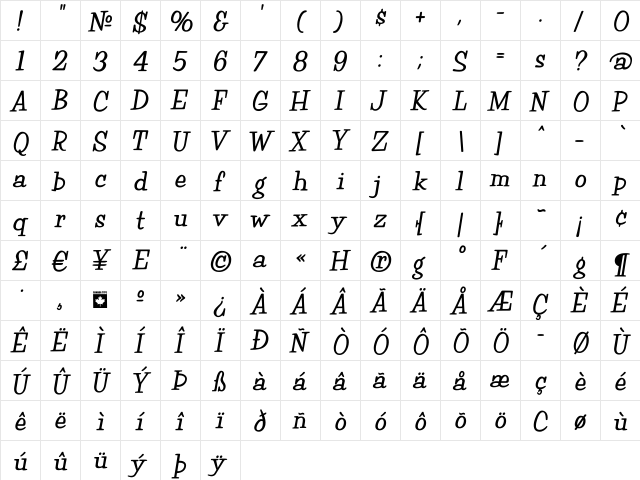
Happy Bold Italic
Design Context for Happy Typeface
Happy takes a measured approach to typography — its balanced proportions and neutral character make it a reliable workhorse for both digital and print work. Its italic angle brings a sense of urgency and motion to the letterforms. The heavy weight commands attention and anchors typographic hierarchies.
Pro Tip: Use Happy for emphasis, pull quotes, and subheadings where its slanted energy can add rhythm to the layout.